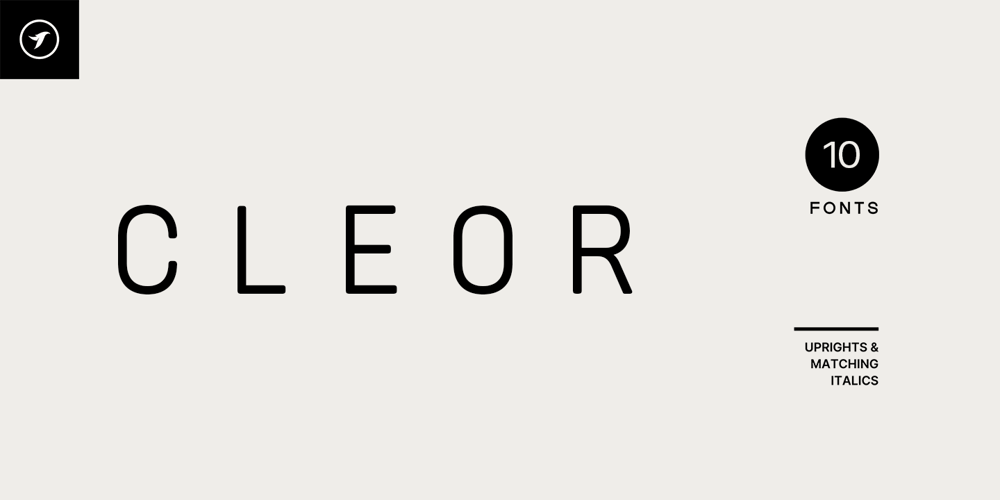
Cleor Font Family was designed by Jean Johnson and published by Designova. Cleor contains 10 styles and family package options. CLEOR is a unique sans-serif font family that can be used for branding, logotypes, and display purposes. It is especially suitable for creating exceptional logos, promotional content, and marketing graphics that can capture your visitors’ attention. By adjusting the letterspacing of the font, you can have more design options for your creative projects. Take a look at the examples above to get a better idea of the potential of this typeface.The CLEOR family contains a total of 10 fonts featuring five weights with uprights and italics. Each weight includes extended language support including Western European & Central European sets. A total of 350 glyphs are included. FEATURES:CLEOR font family includes a collection of 10 fonts in total, with five upright weights and Italic equivalents of all five weights as follows: Thin Thin Italic Light Light Italic Regular Italic Bold Bold Italic Black Black Italic 350 GLYPHS INCLUDED:Handcrafted and designed with powerful OpenType features in mind, each weight includes extensive language support with Western European, Central European, and South Eastern European sets. A total of 350 glyphs are available.EXTENSIVE LANGUAGE SUPPORT:Afrikaans • Albanian • Asu • Basque • Bemba • Bena • Breton • Catalan • Cebuano • Chiga • Colognian • Cornish • Corsican • Czech • Danish • Dutch • Embu • English • Estonian • Filipino • Finnish • French • Friulian • Galician • German • Guarani • Gusii • Hawaiian • Hungarian • Ido • Indonesian • Interlingua • Interlingue • Irish • Italian • Javanese • Jju • Kabuverdianu • Kaingang • Kalaallisut • Kalenjin • Kamba • Kikuyu • Kinyarwanda • Kurdish • Ligurian • Lithuanian • Lojban • Lombard • Low German • Luo • Luxembourgish • Luyia • Machame • Makhuwa • Makhuwa-Meetto • Makonde • Malagasy • Malay • Manx • Māori • Meru • Mohawk • Morisyen • Nheengatu • North Ndebele • Northern Sotho • Norwegian Bokmål • Norwegian Nynorsk • Nyanja • Nyankole • Occitan • Oromo • Portuguese • Quechua • Rejang • Romansh • Rombo • Rundi • Rwa • Samburu • Samoan • Sango • Sangu • Sardinian • Scottish Gaelic • Sena • Shambala • Shona • Slovak • Slovenian • Soga • Somali • South Ndebele • Southern Sotho • Spanish • Sundanese • Swahili • Swati • Swedish • Swiss German • Taita • Taroko • Teso • Tongan • Tsonga • Tswana • Turkish • Turkmen • Uzbek • Vunjo • Walloon • Walser • Welsh • Western Frisian • Wolastoqey • Xhosa • Zhuang • Zulu